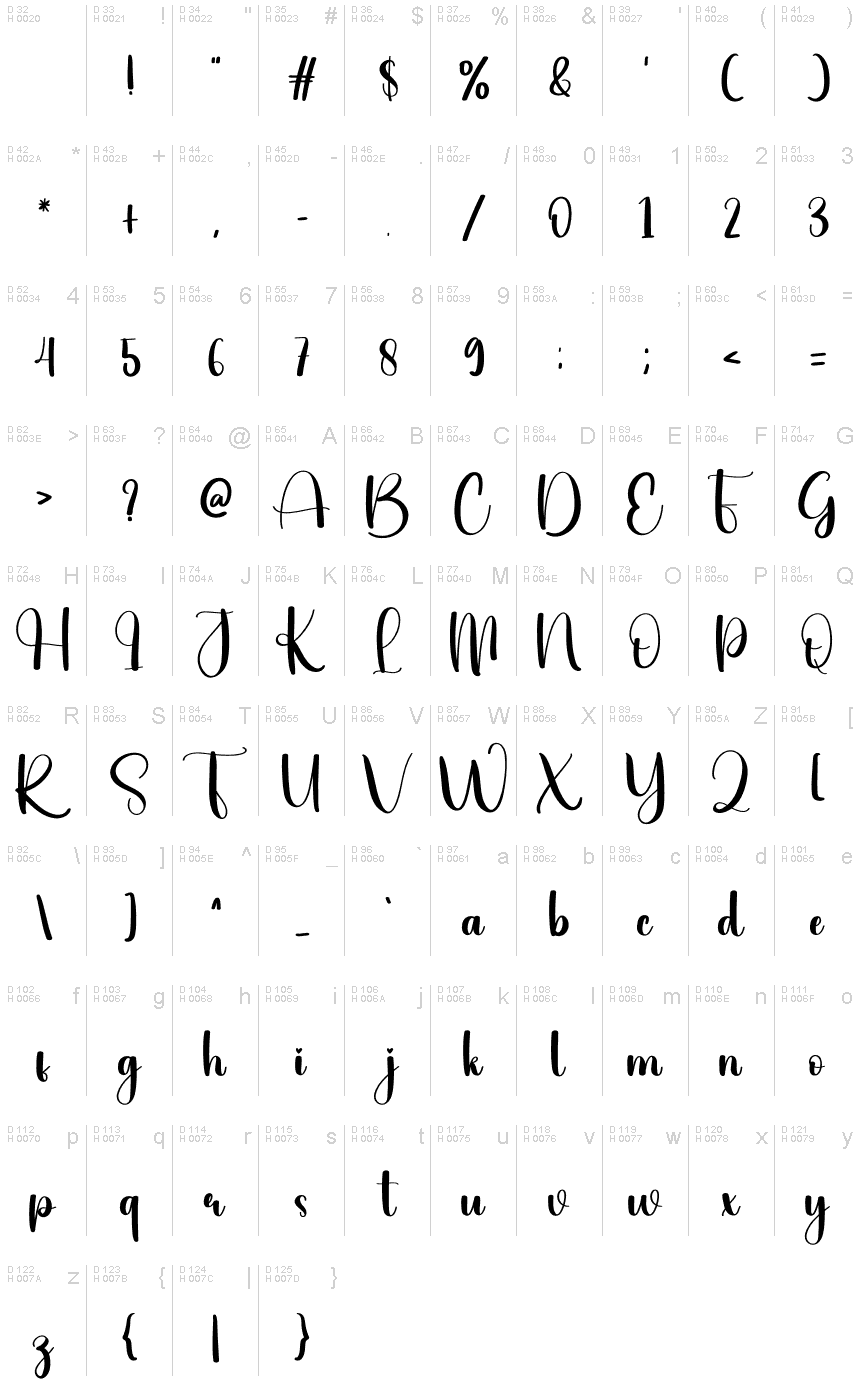
Ruddy Face
Ruddy Face emerges as a calligraphy font that exudes elegance and fluidity, crafted with meticulous care by Scratchones. Its sweeping curves and fine lines evoke the artistry of traditional calligraphy while maintaining a modern sensibility that makes it versatile for contemporary design work. The font’s aesthetic appeal lies in its harmonious balance between decorative elements and readability, ensuring that it captures attention without overwhelming the content.
With its distinct character, Ruddy Face is ideal for invitations, branding, and advertising projects where a touch of sophistication is desired. Its style resonates with projects aiming for an intimate yet professional tone. Whether used in print or digital media, Ruddy Face lends itself beautifully to creative endeavors seeking to blend classic calligraphic beauty with modern flair.